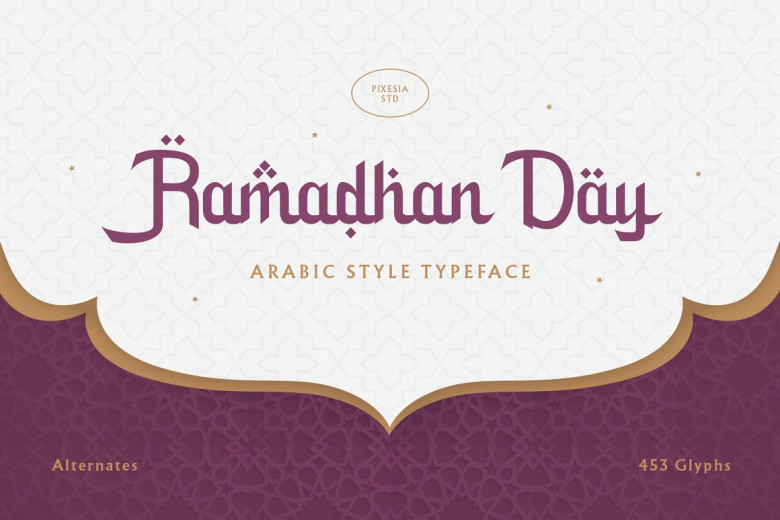
Ramadhan Day Font
Ramadan Day is an Arabic display font designed to add modernity and sophistication to your designs. With its graceful curves and smooth lines, it makes an excellent font for creating striking headings, logos, headlines, greeting cards, invitations posters as well as designs related to Ramadan.
Ramadhan Day Arabic Font